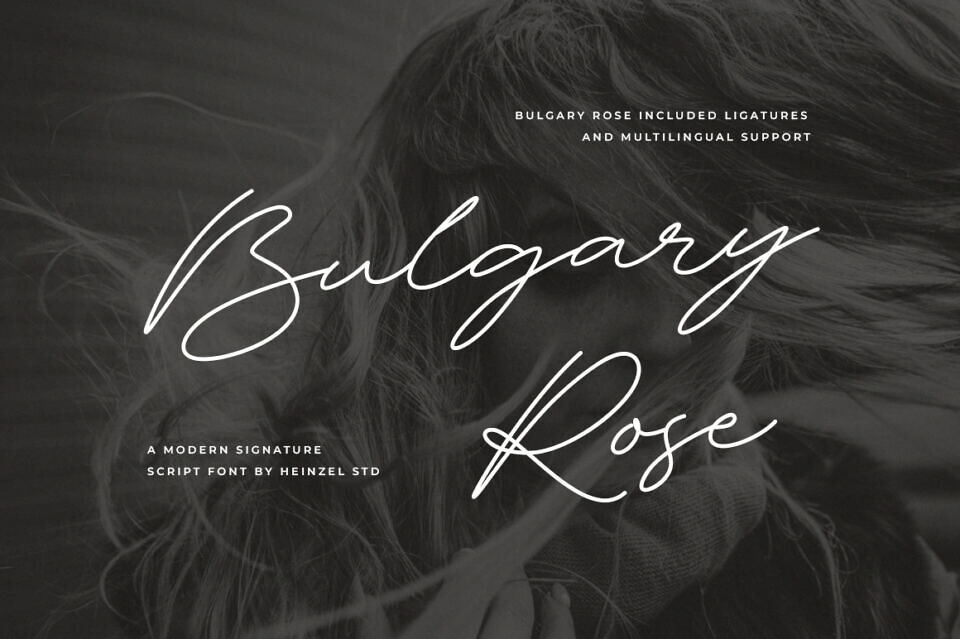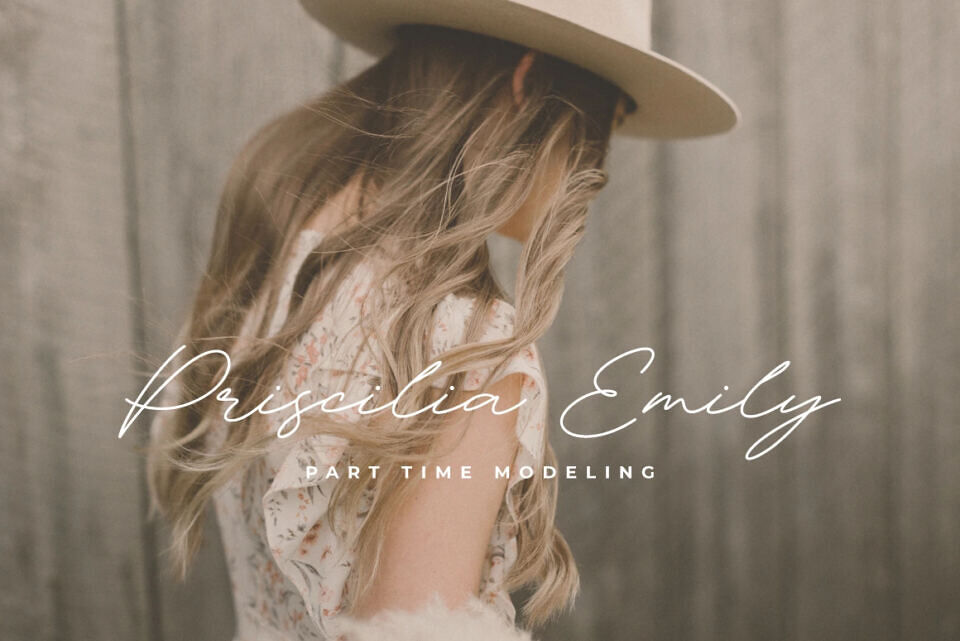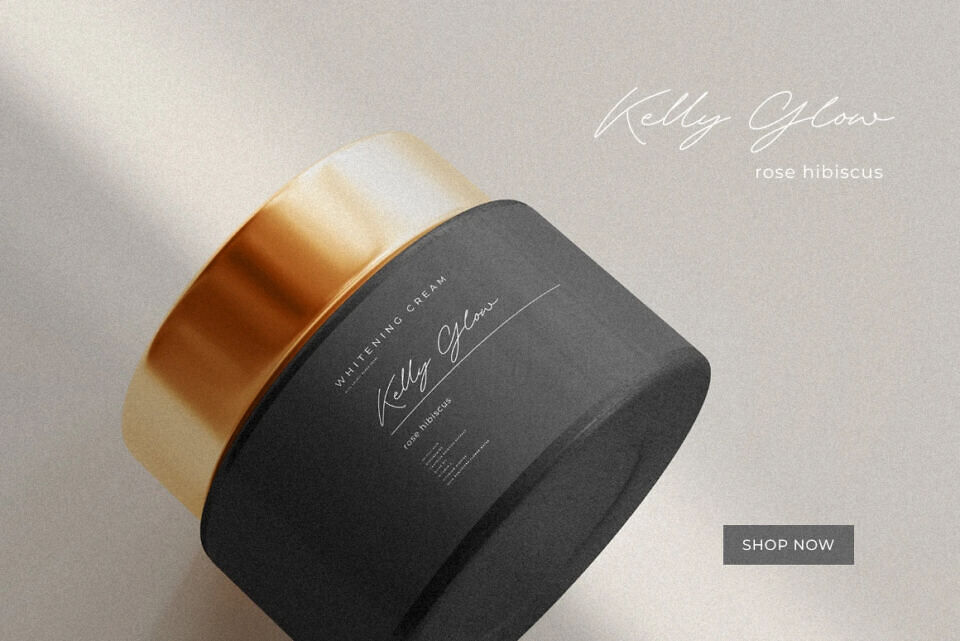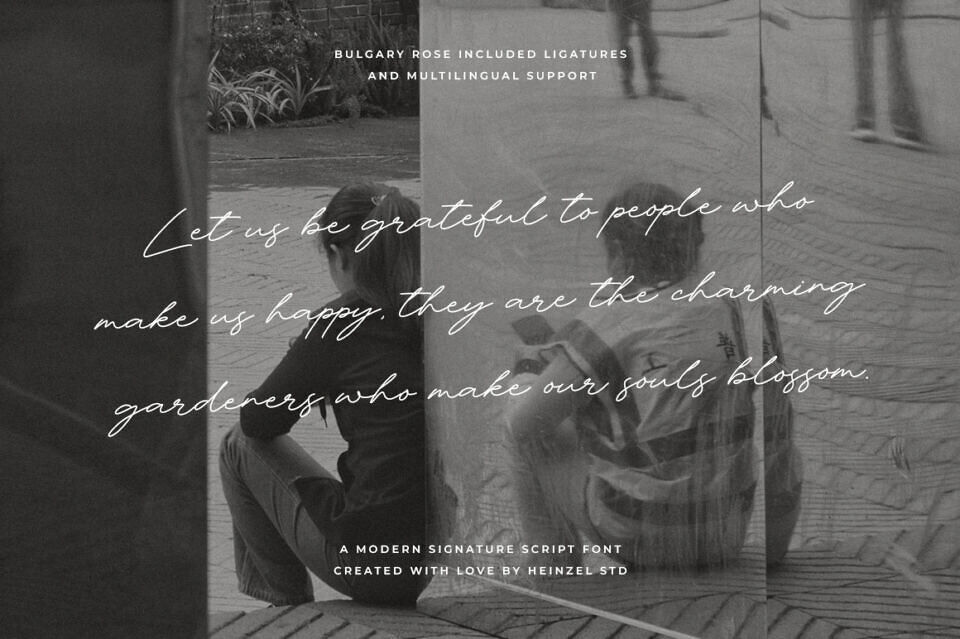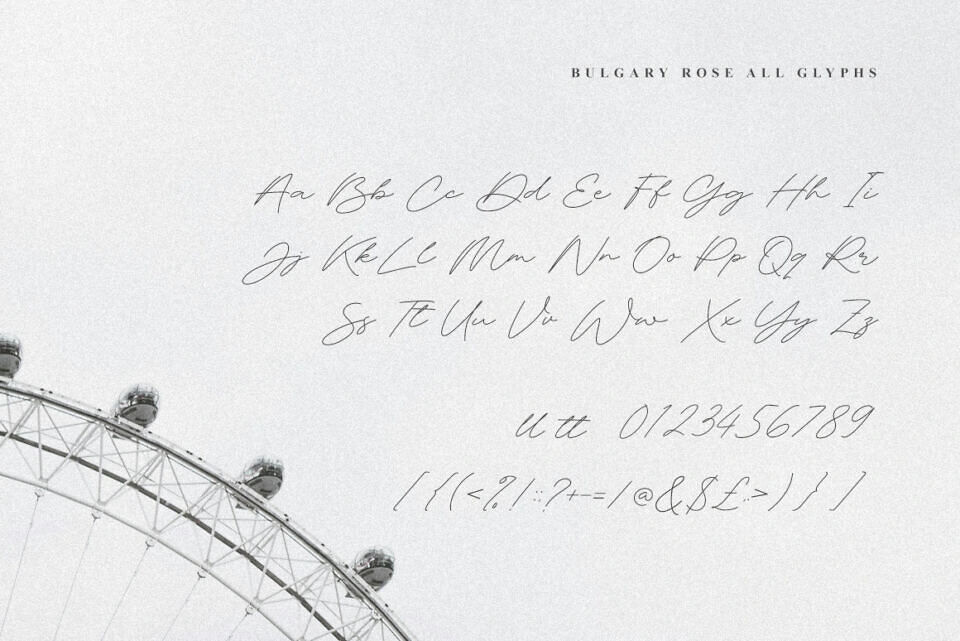
Bulgary Rose Font
Bulgary Rose is a Signature Script Font, described by an elegant touch, perfect for your favorite projects. It looks stunning on wedding invitations, thank you cards, quotes, greeting cards, logos, business cards, social media, magazines, marketing materials, and every other design which needs a handwritten touch.
Crafted with meticulous attention to detail, Bulgary Rose captures the essence of genuine handwriting. Its fluid strokes and gentle curves create a sense of authenticity, making it perfect for personal branding, invitations, and heartfelt projects.